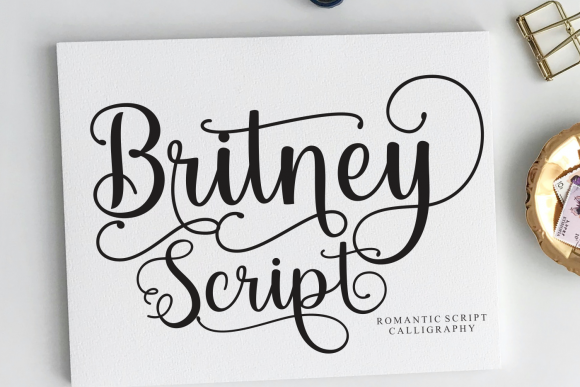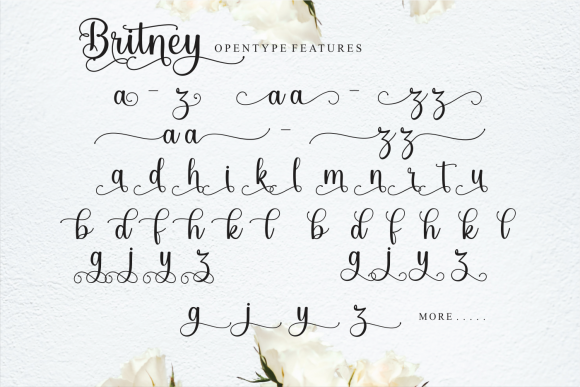
Britney Font
db-ku.com - Script & Handwritten -- Britney is a unique and elegant handwritten font. It looks beautiful on a variety of designs requiring a personalized style, such as wedding invitations, thank you cards, weddings, greeting cards, logos and so on. This font is PUA encoded which means you can access all of the glyphs and swashes with ease!